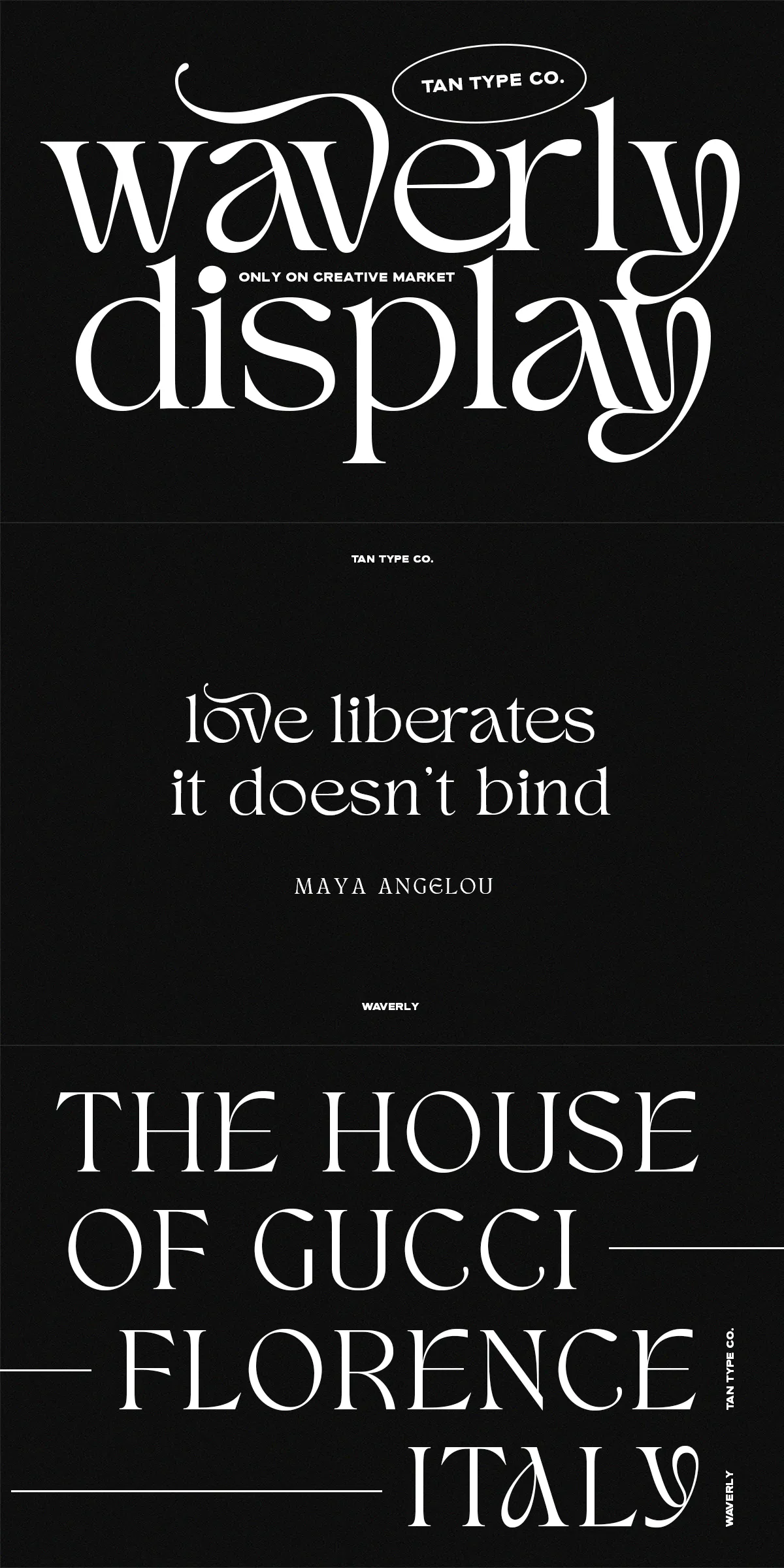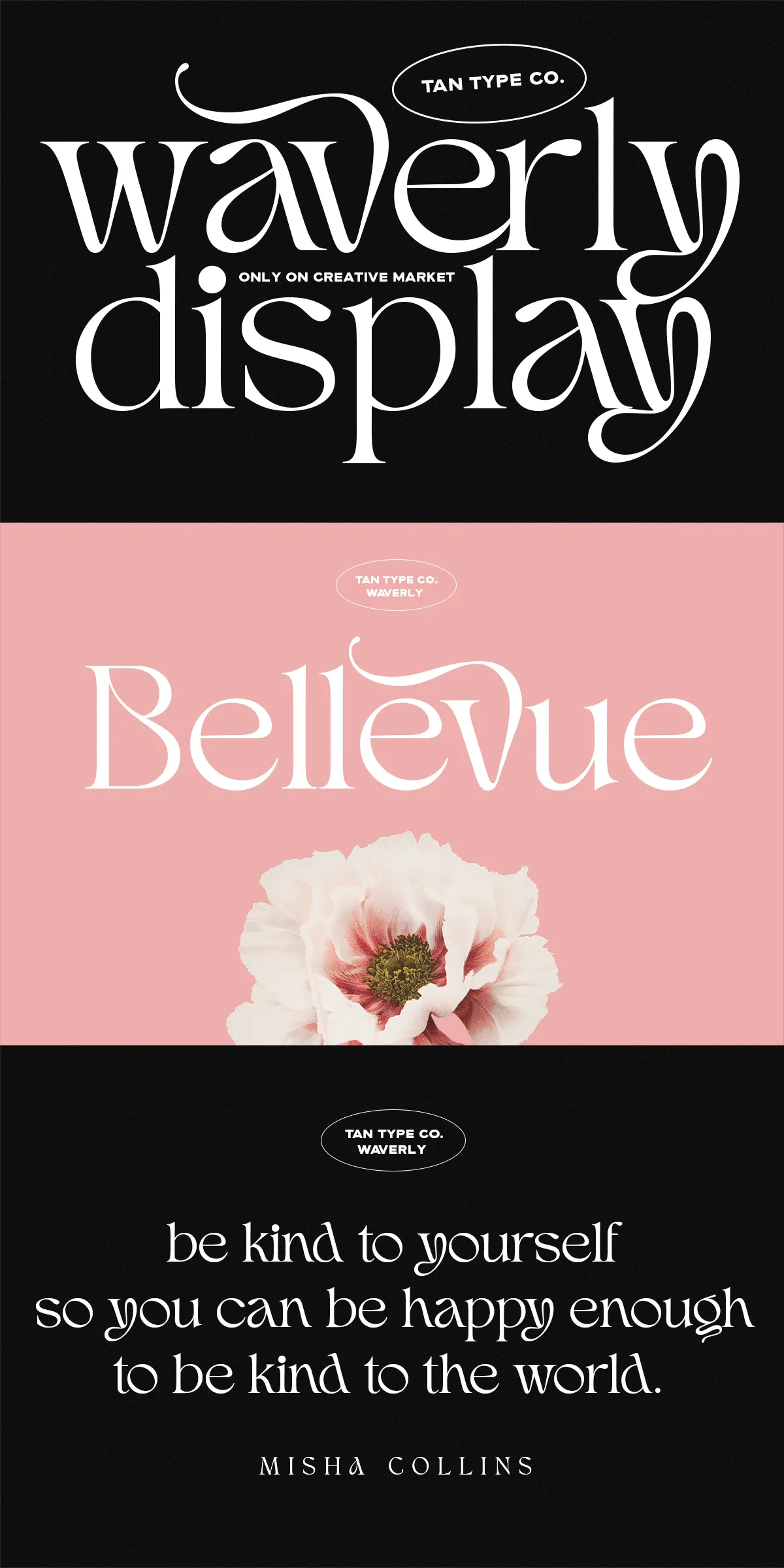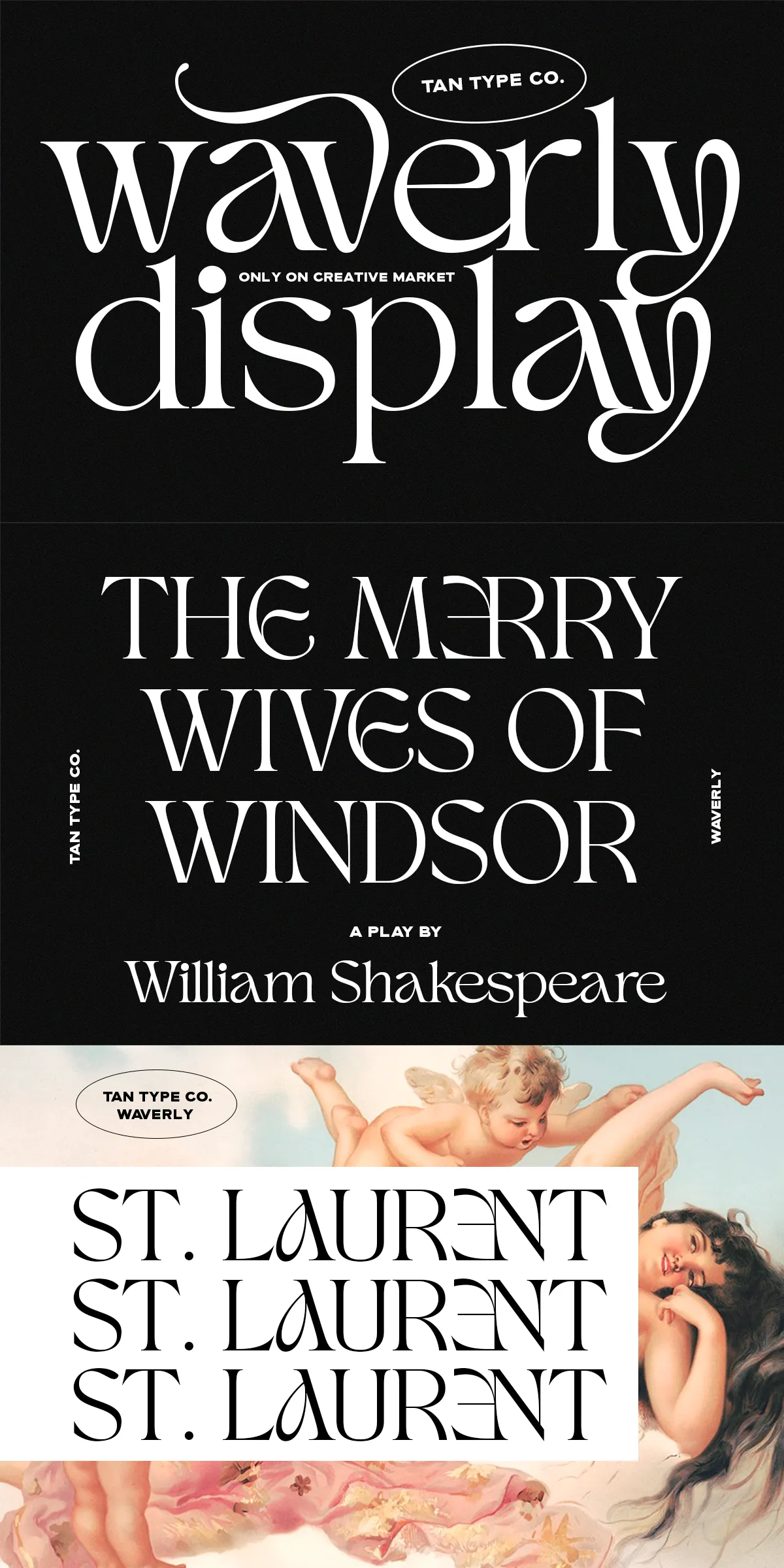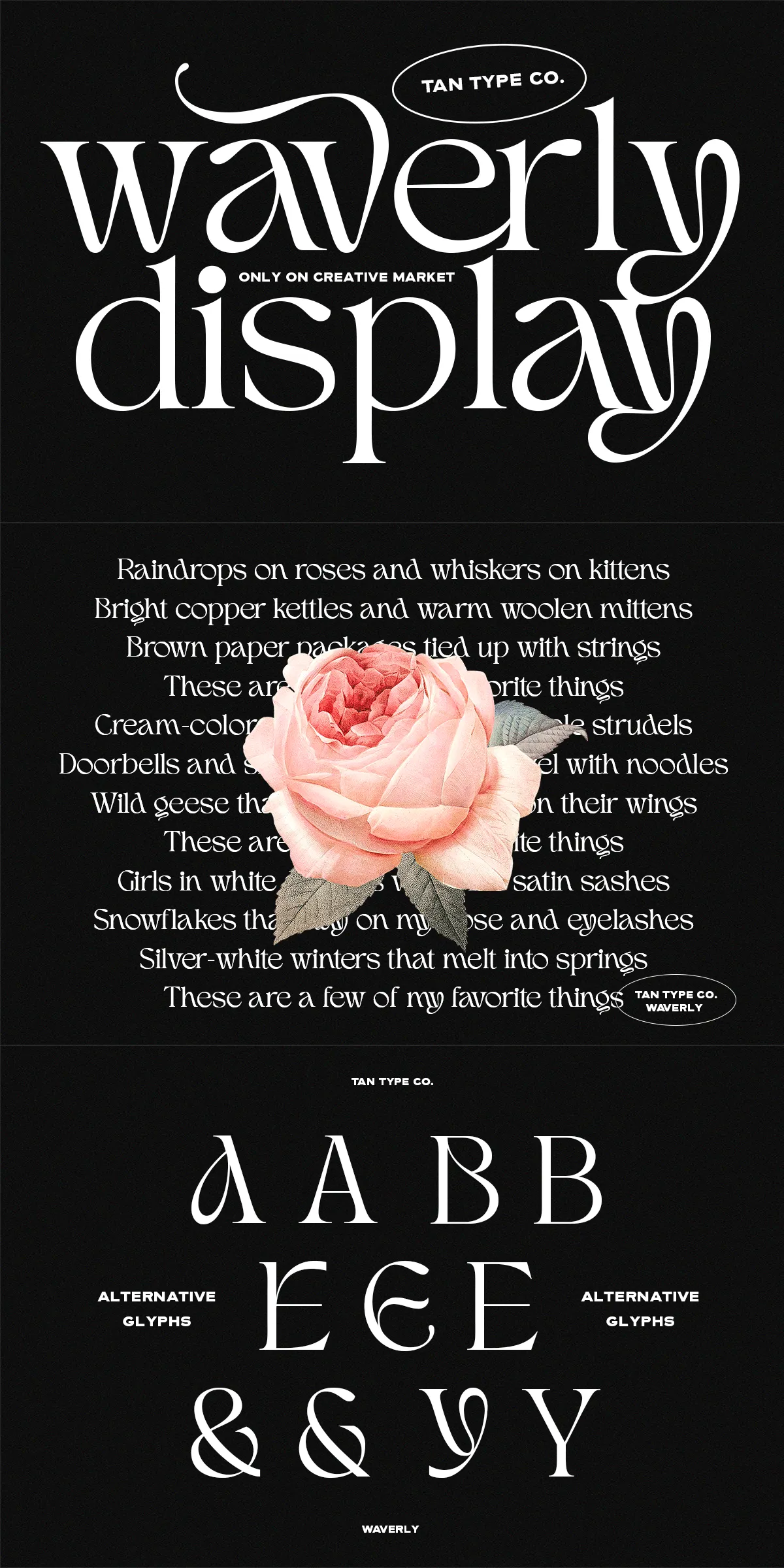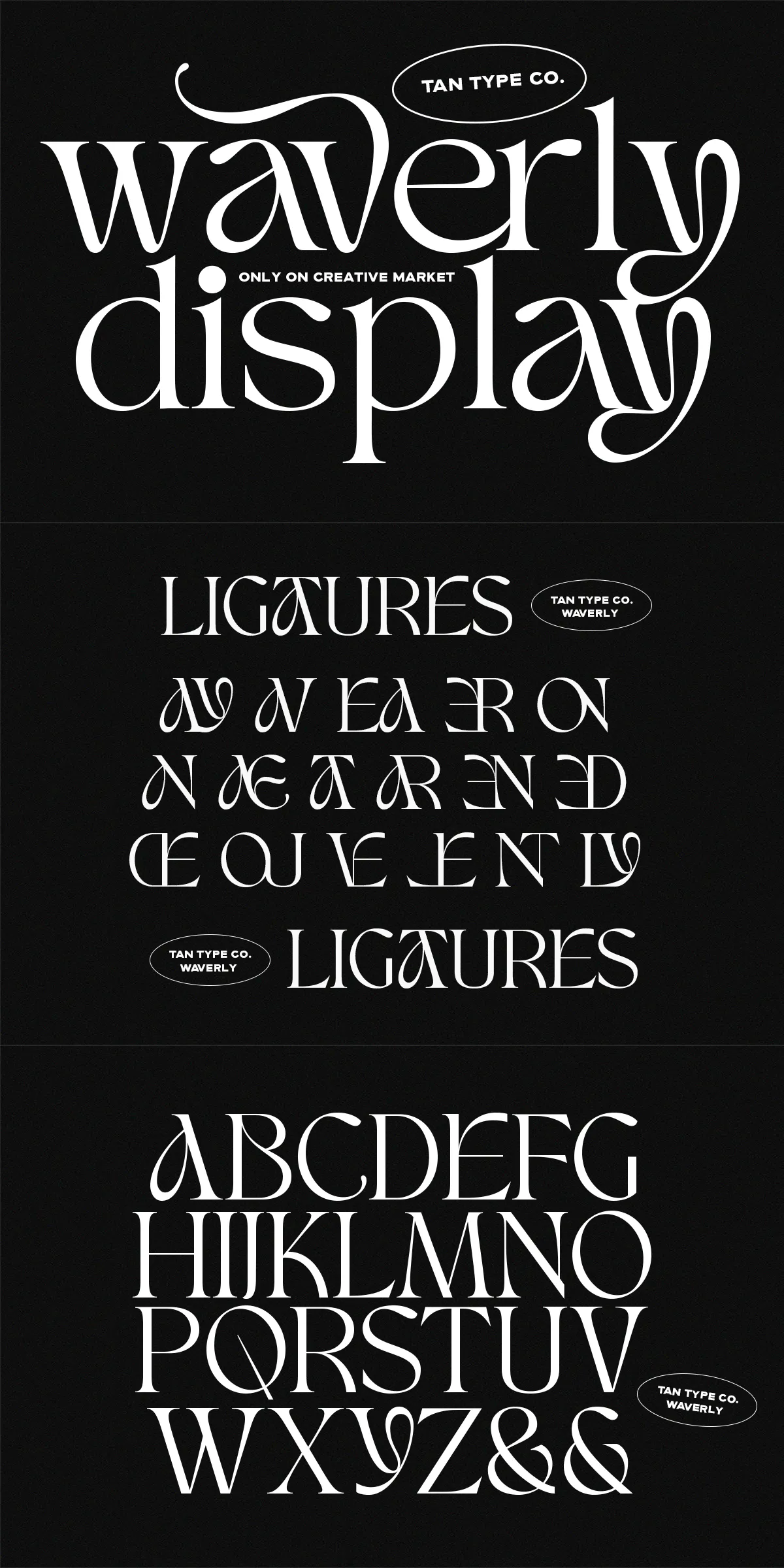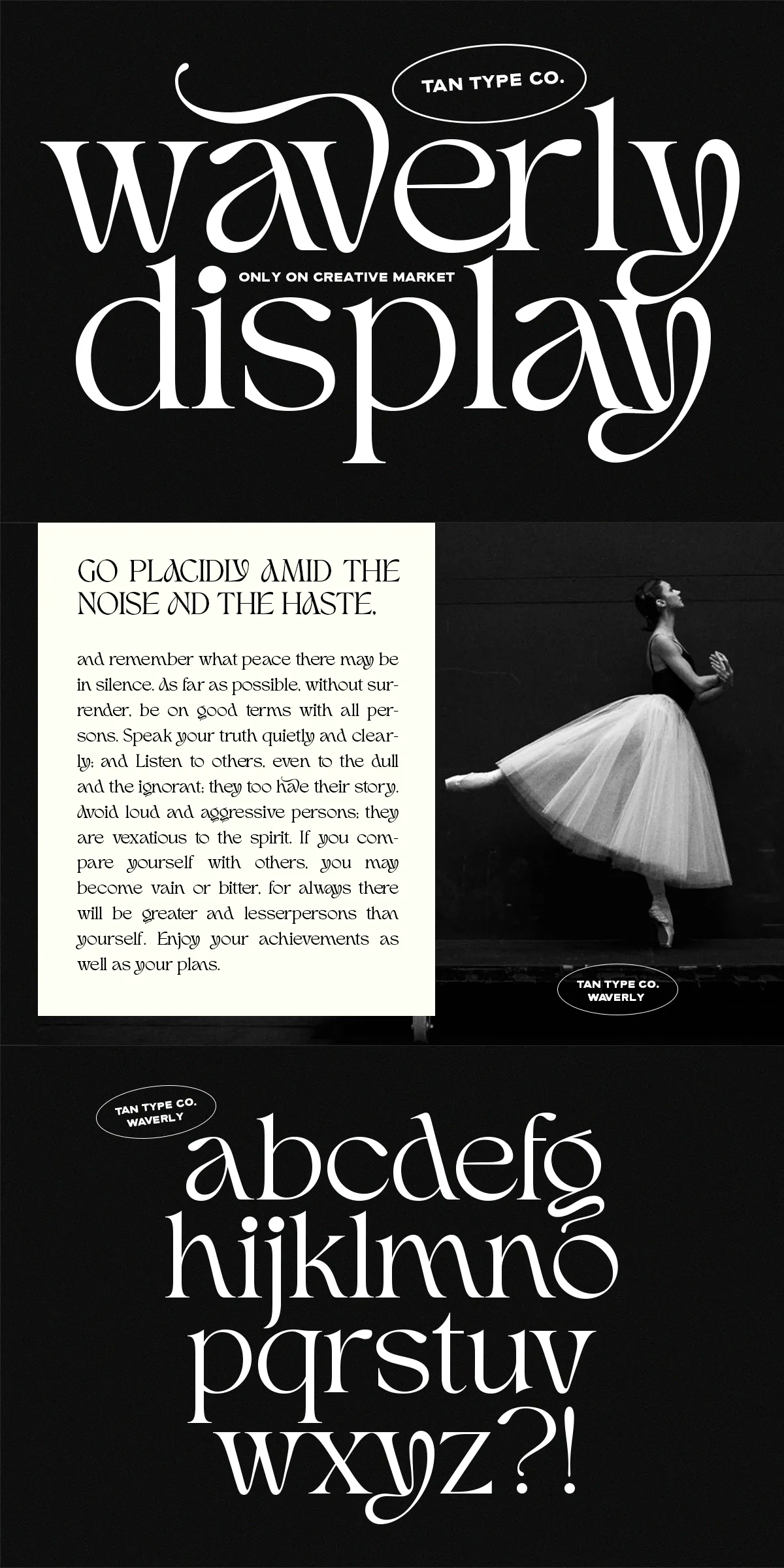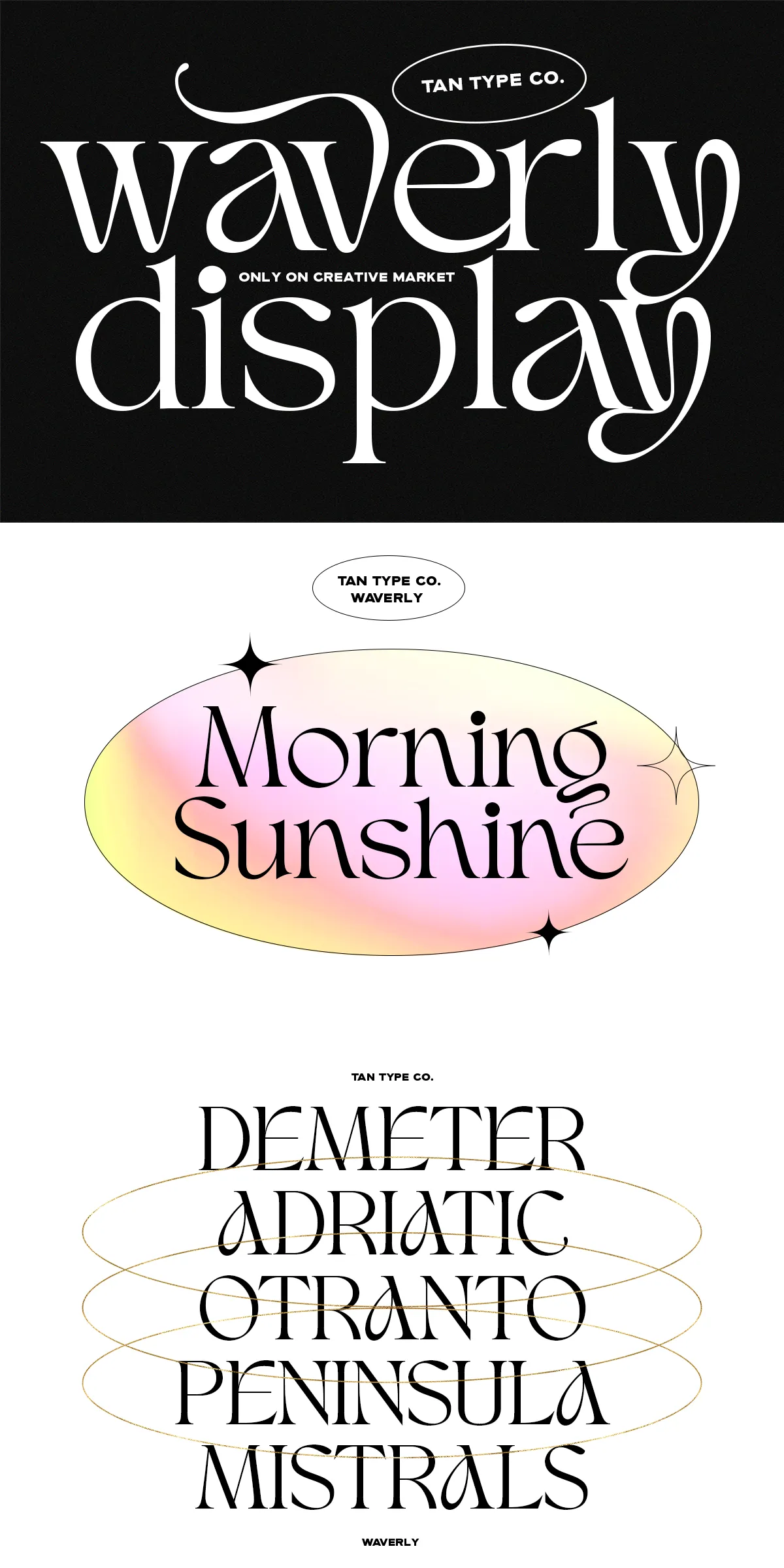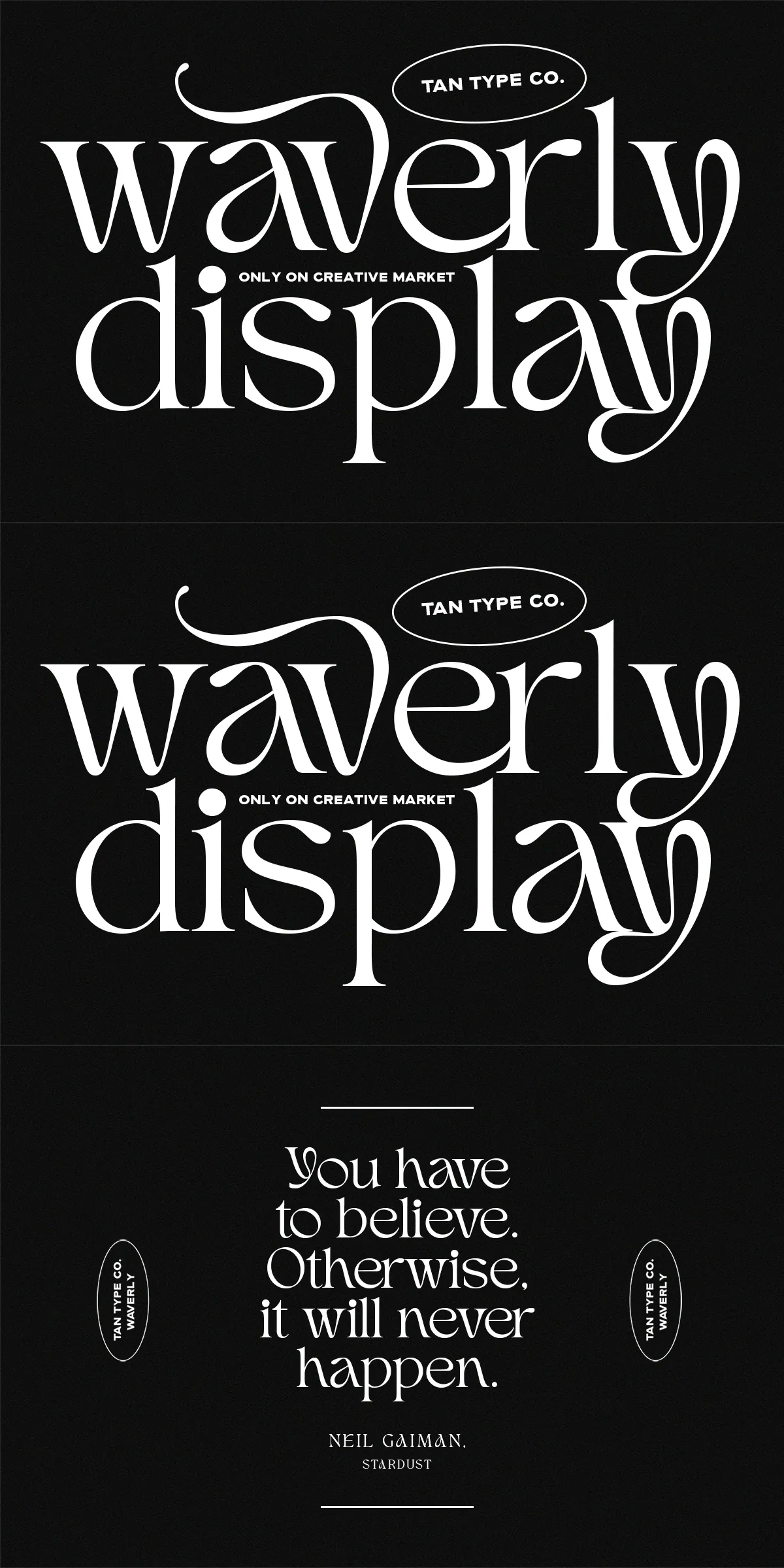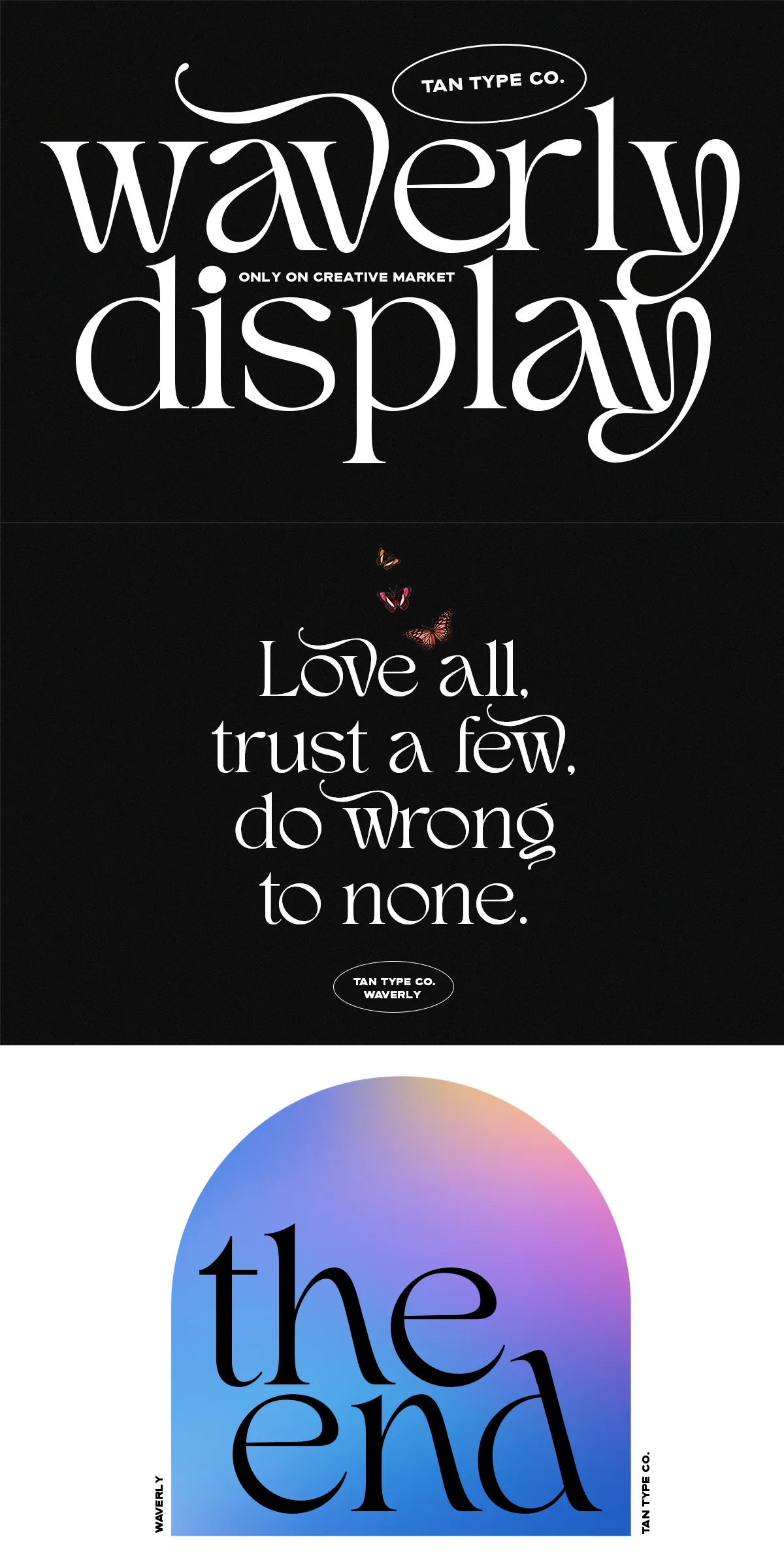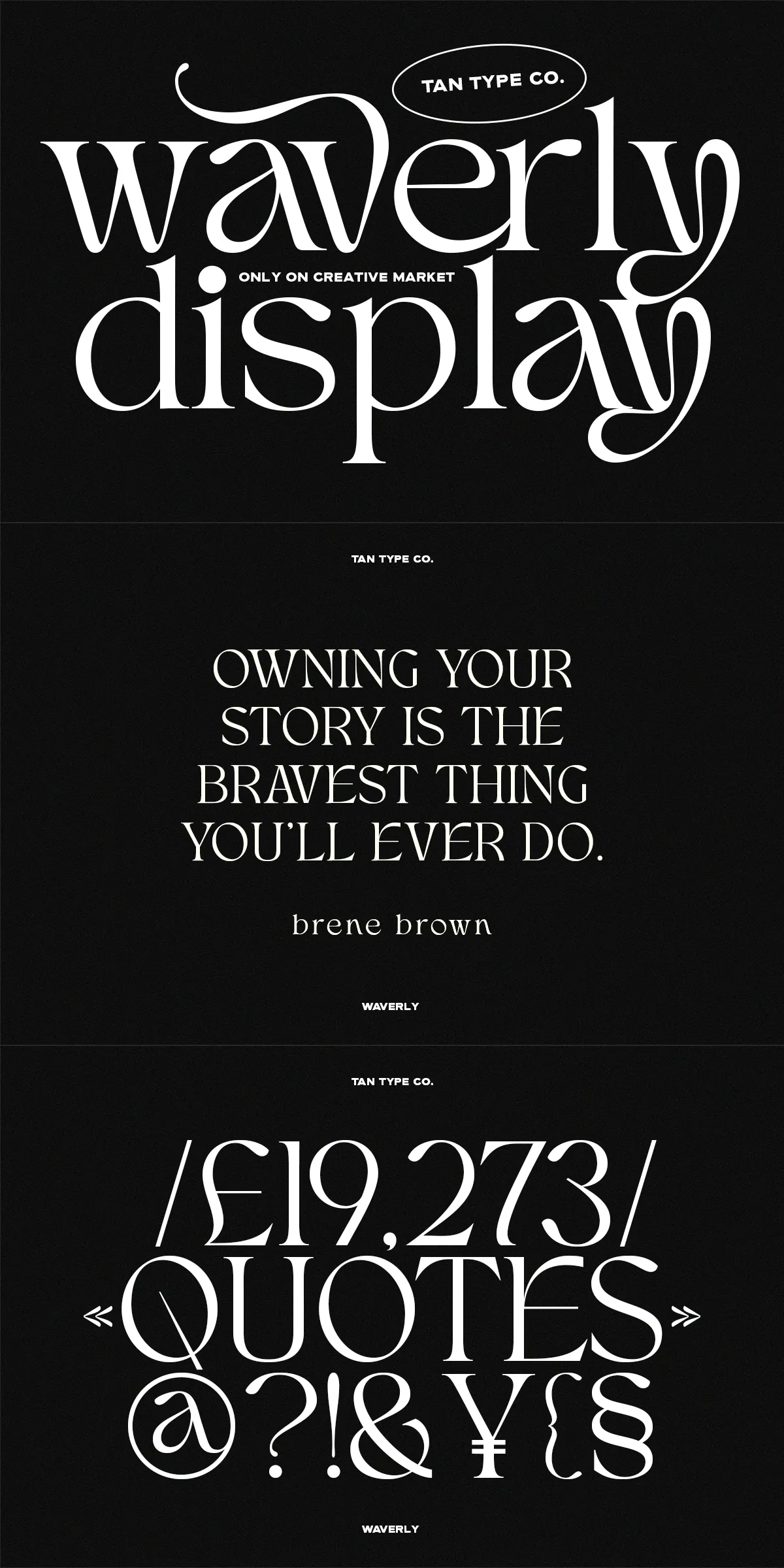
TAN – WAVERLY stands out as a refined serif typeface that masterfully blends elegance with personality. Designed to offer both beauty and versatility, this typeface is packed with a wide array of ligatures and glyph options, allowing designers to infuse their projects with subtle quirks while preserving the graceful shapes that define its character. Whether you are crafting sophisticated branding, editorial layouts, or stylish headlines, TAN – WAVERLY provides the perfect balance of classic charm and modern functionality.
Distinctive Features and Design Qualities
At the heart of TAN – WAVERLY’s appeal is its extensive collection of ligatures and glyphs. These features enable designers to create fluid, natural-looking typography that elevates the reading experience and adds a unique flair to any design. The typeface’s subtle quirks—small, intentional design details—bring personality and warmth without compromising its overall elegance. This thoughtful design approach ensures TAN – WAVERLY remains both distinctive and highly readable.
Multilingual Support and Future Updates
Applications and Use Cases
TAN – WAVERLY’s elegant and versatile design makes it suitable for a wide range of creative projects, including:
- Branding and Logo Design: Create memorable and sophisticated brand identities with the typeface’s graceful letterforms and unique ligatures.
- Editorial and Print Design: Enhance magazines, books, and brochures with refined typography that balances style and readability.
- Packaging and Advertising: Add a touch of class and personality to product packaging and promotional materials.